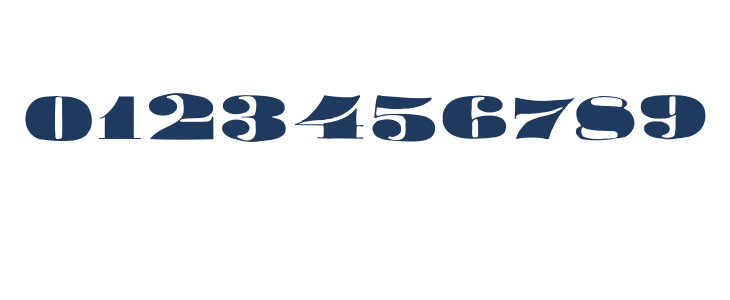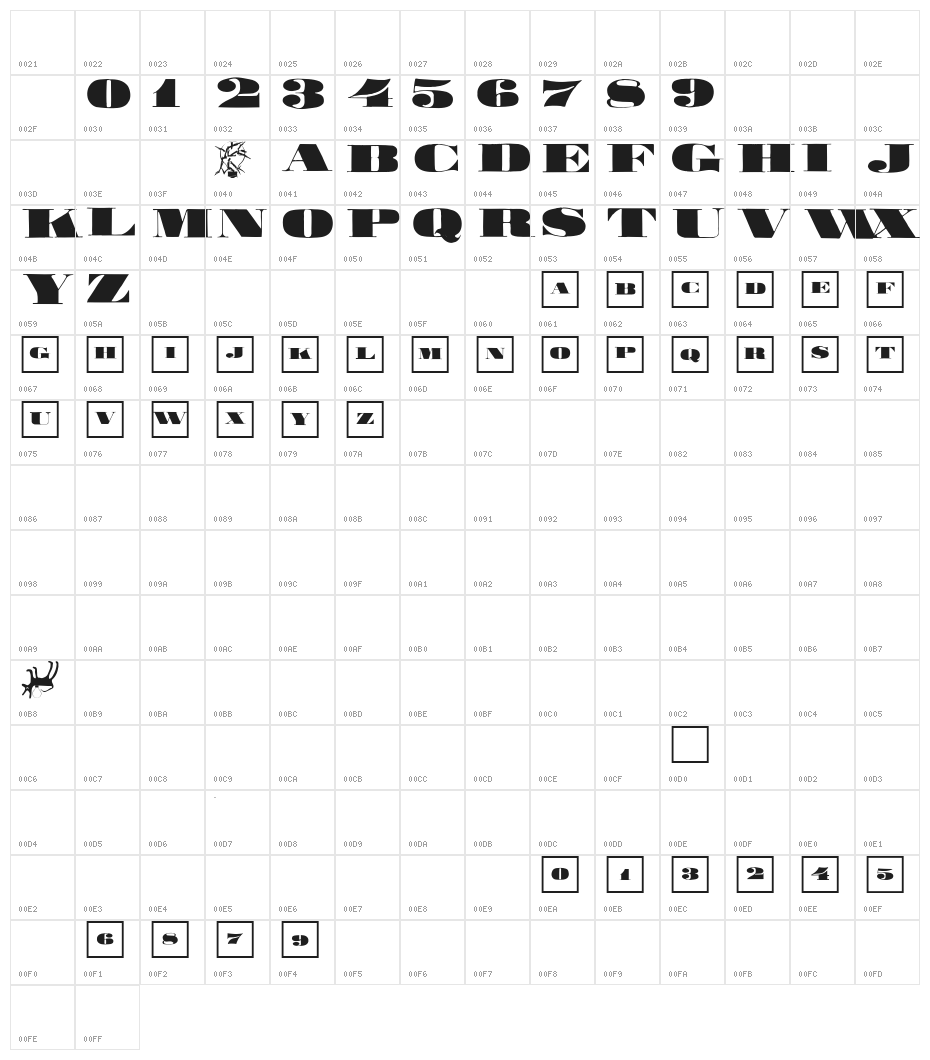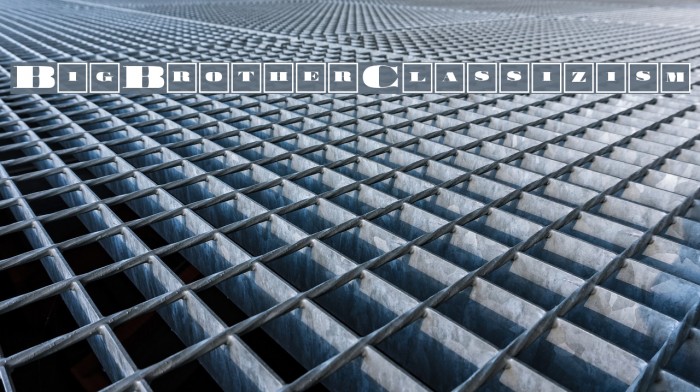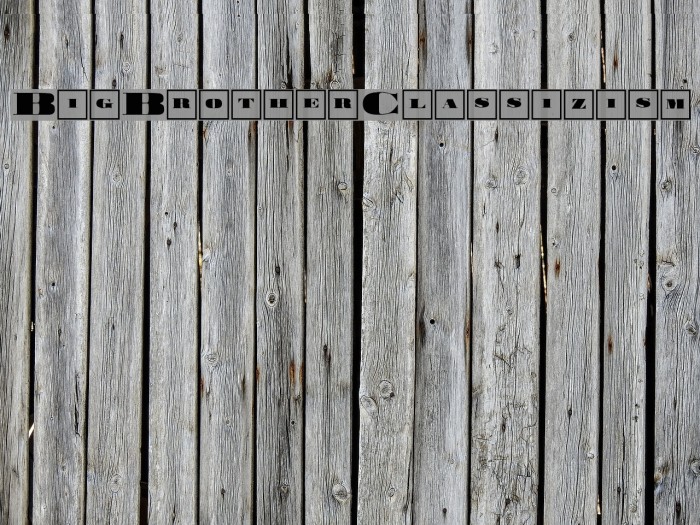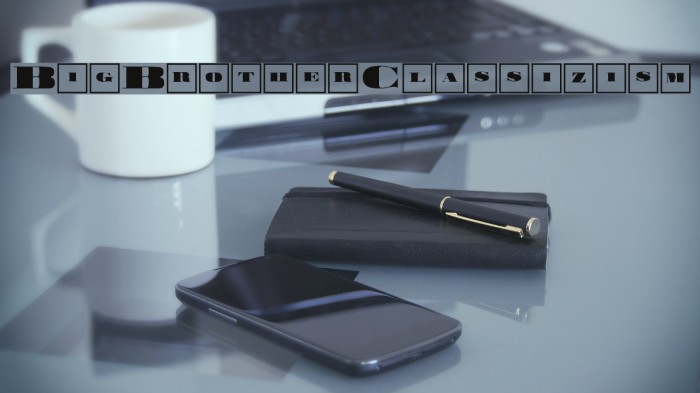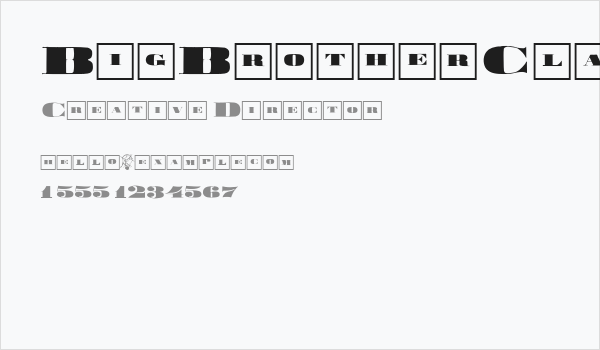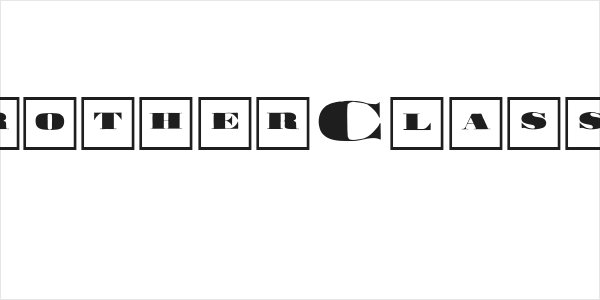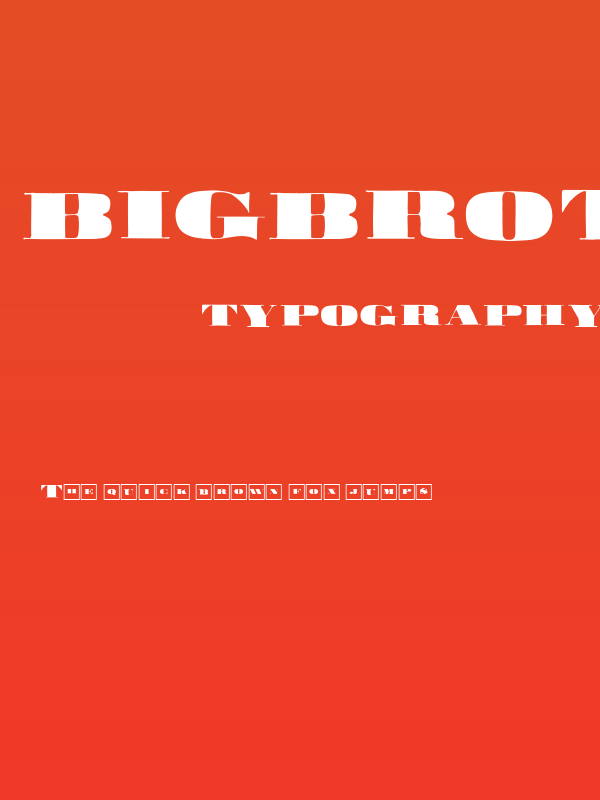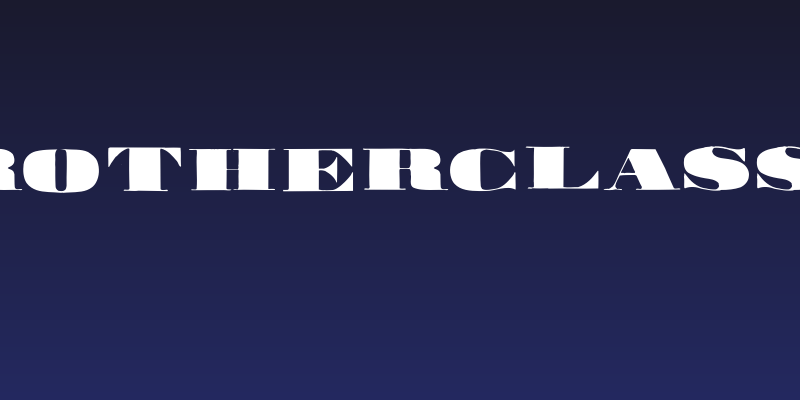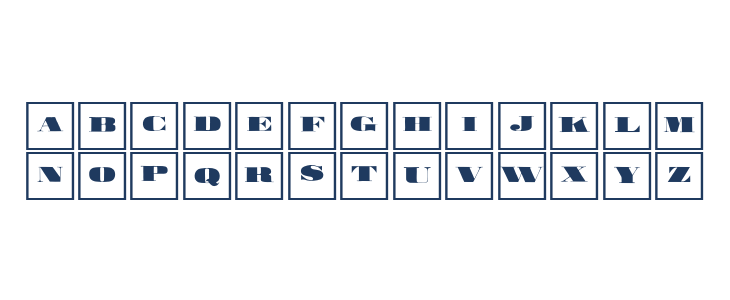
BigBrotherClassizism Font
BigBrotherClassizism Description
This font features a bold and striking design with a strong presence. The uppercase letters are characterized by thick, block-like serifs and a high contrast between thick and thin strokes, giving it a dramatic and authoritative appearance. The enclosed versions of the letters add a unique, boxed-in style that enhances its decorative nature. The numerals follow the same bold and impactful style, ensuring consistency across all characters. This font is ideal for making a statement and drawing attention.
| Proposed Projects | Ideal for posters, headlines, branding, and any project requiring a strong visual impact. |